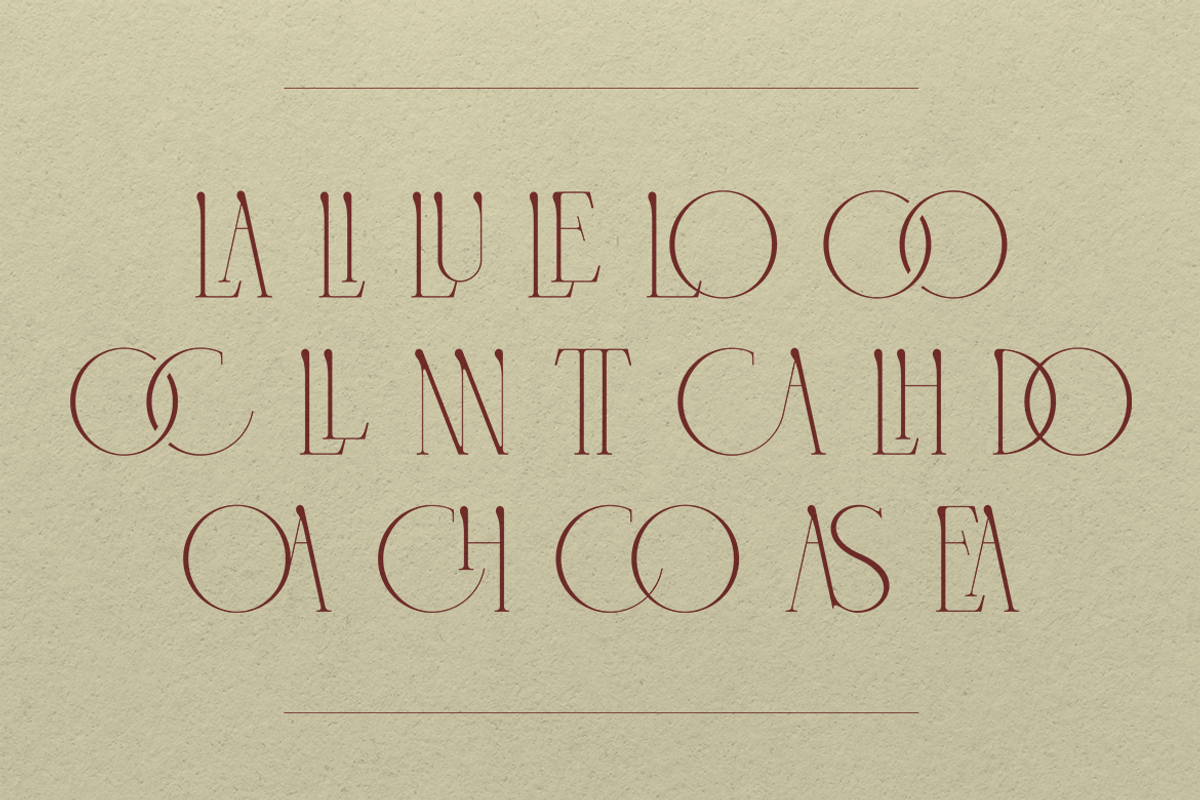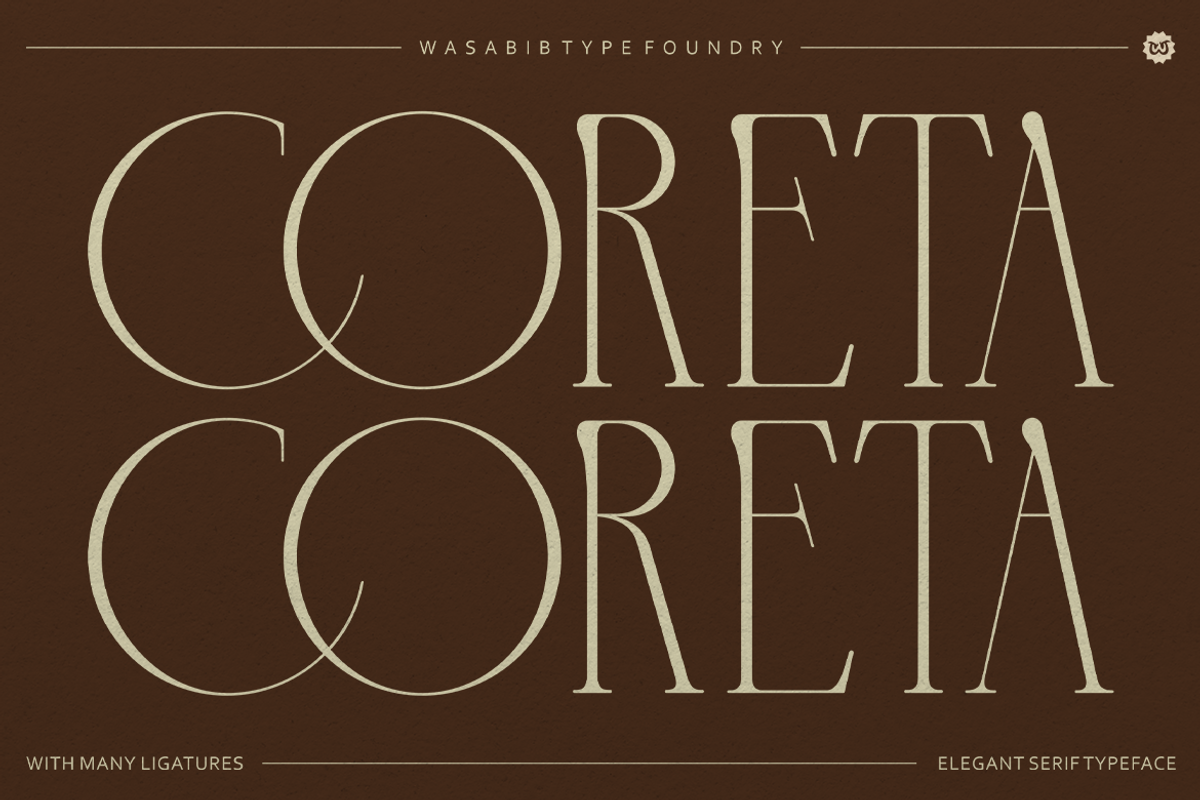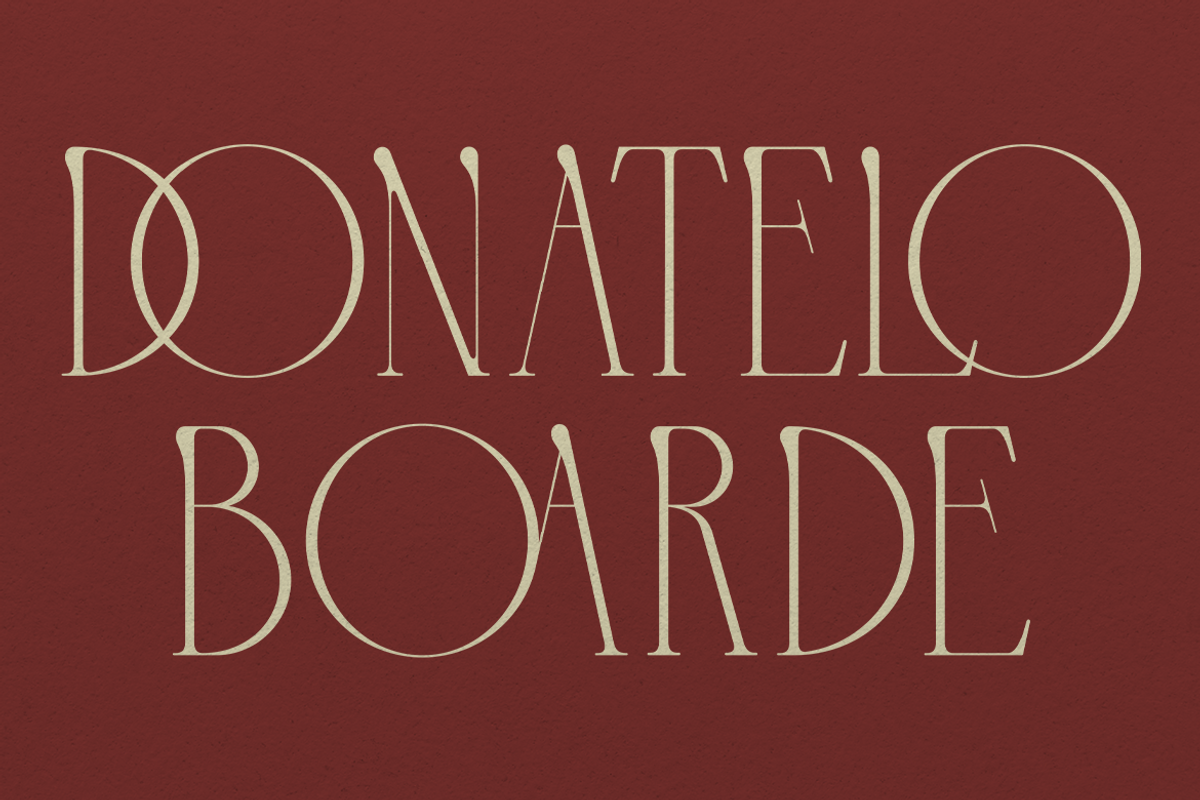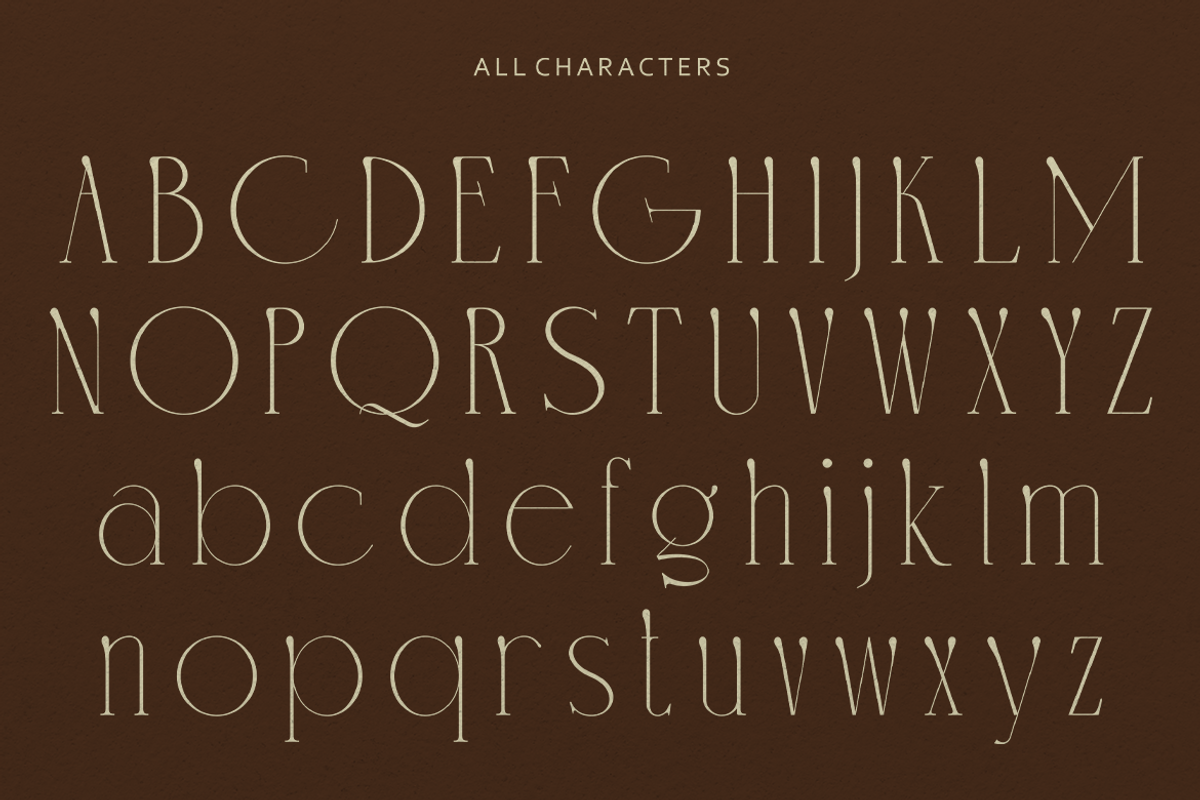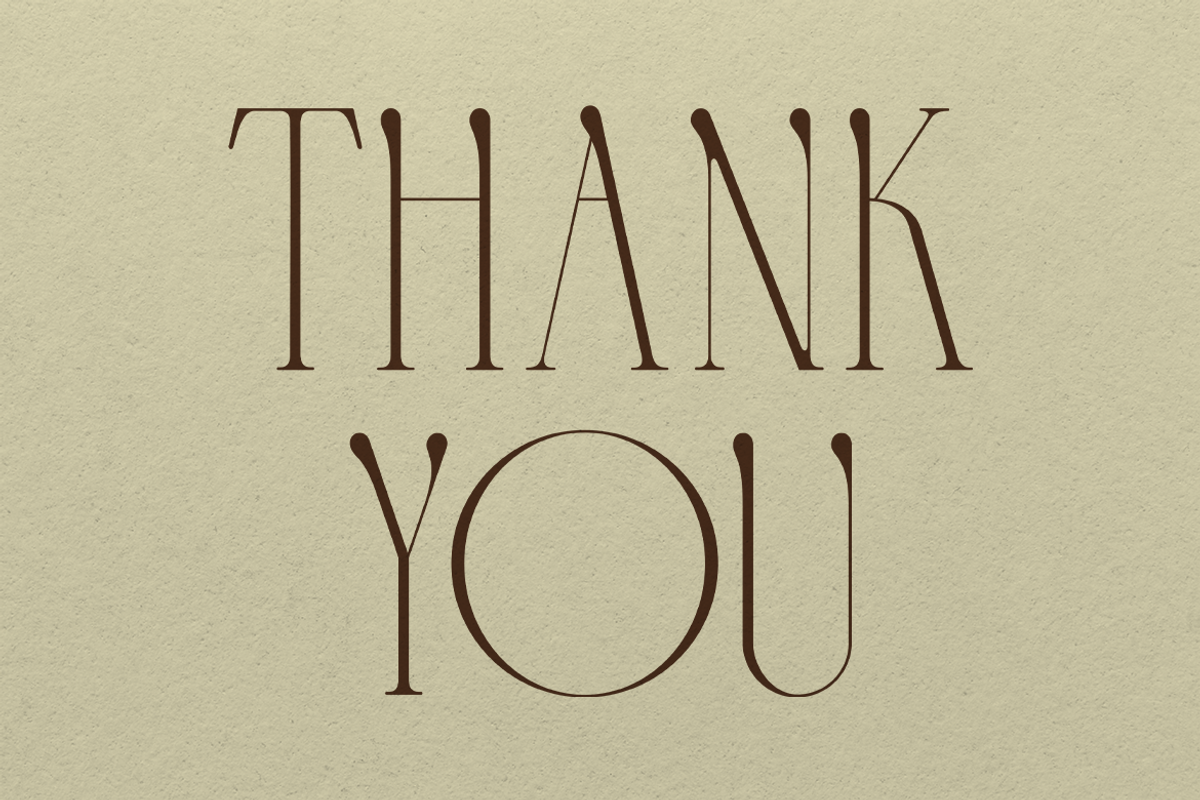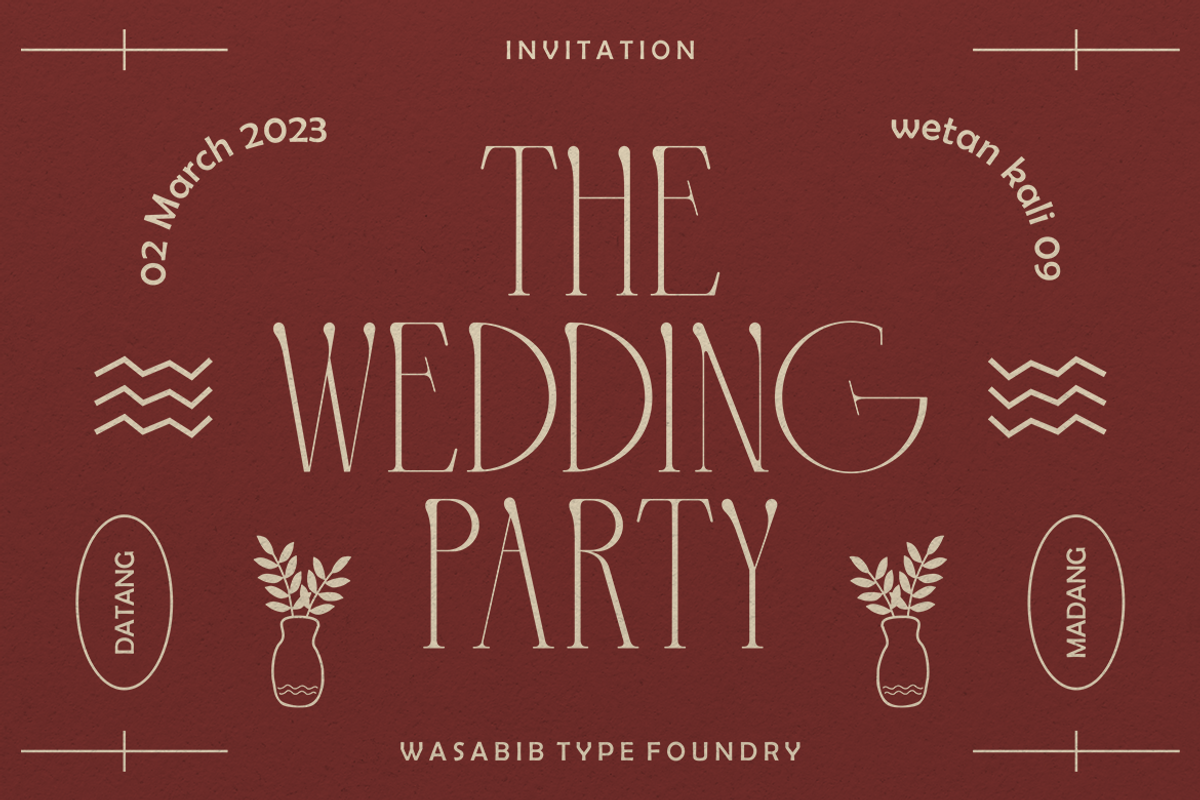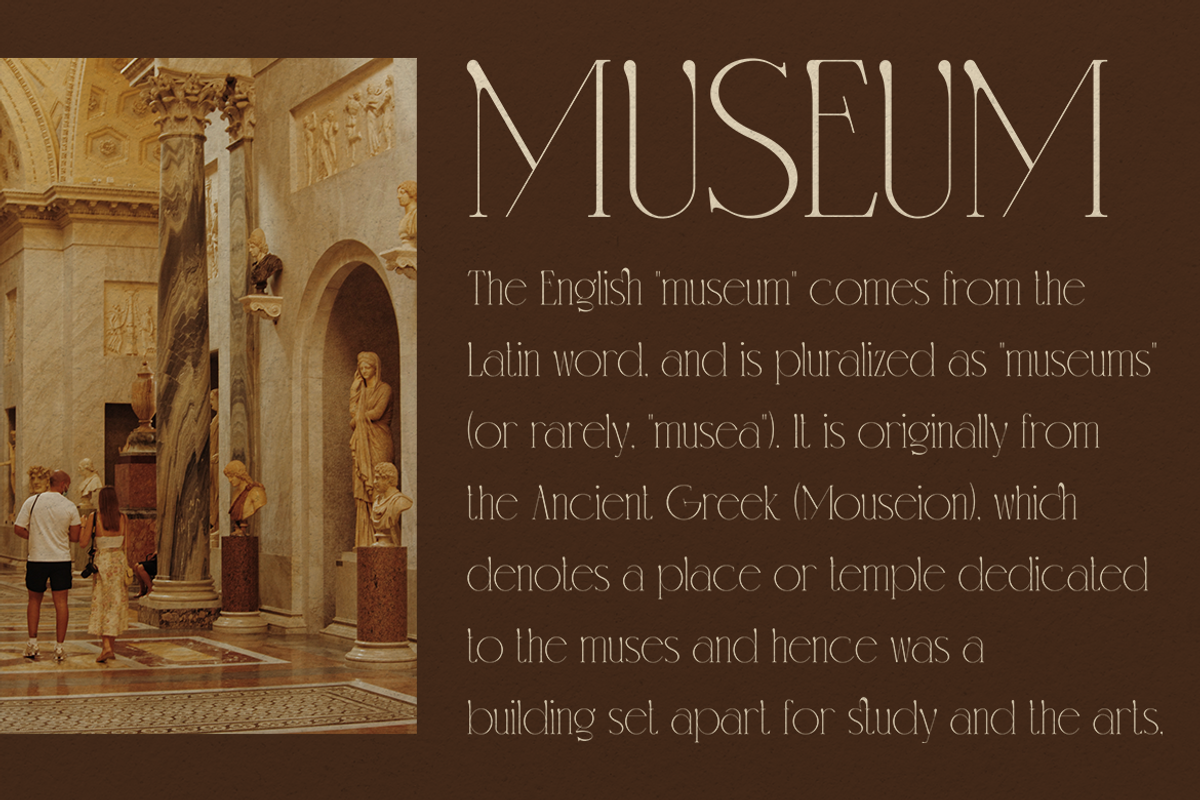
Coreta
Coreta is a modern serif font characterized by its smooth curves and elegant proportions. This versatility makes it suitable for a wide range of applications, from branding and packaging to wedding invitations. The presence of ligatures adds an extra touch of sophistication and visual interest. Overall, Coreta exudes a sense of refined style while maintaining readability at various sizes.